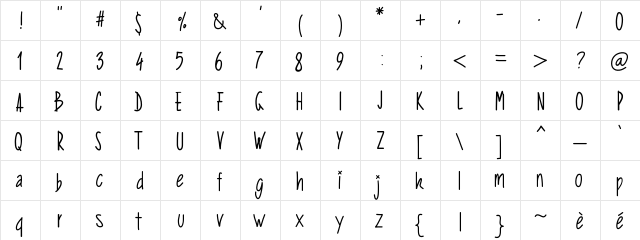
PWVerticalized Medium
Design Context for PWVerticalized Typeface
PWVerticalized offers clean, dependable letterforms without strong stylistic allegiance, making it a practical choice for designers who need flexibility.